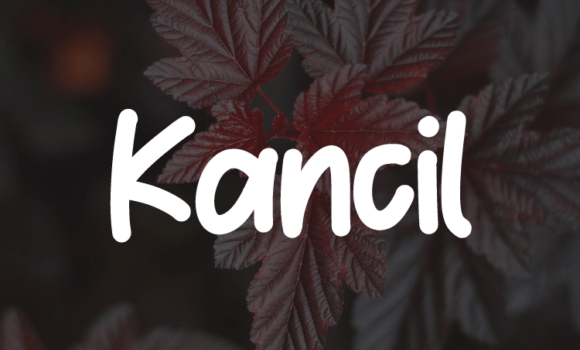
Kancil Font – Free Download Introduction to Kancil Font Kancil is a friendly, bold, and casual handwritten display font. 📸 Preview Gallery 3 images 📌 Product Name Kancil Font 👤 Author Eric Kusuma 📂 Category Explore ⬇️ Download Kancil Font